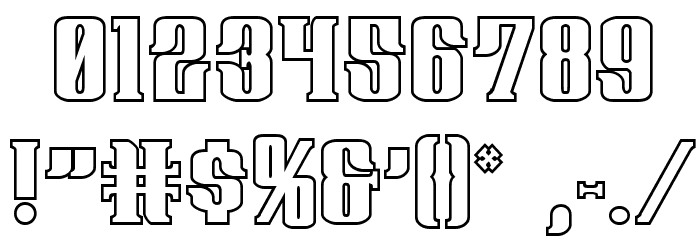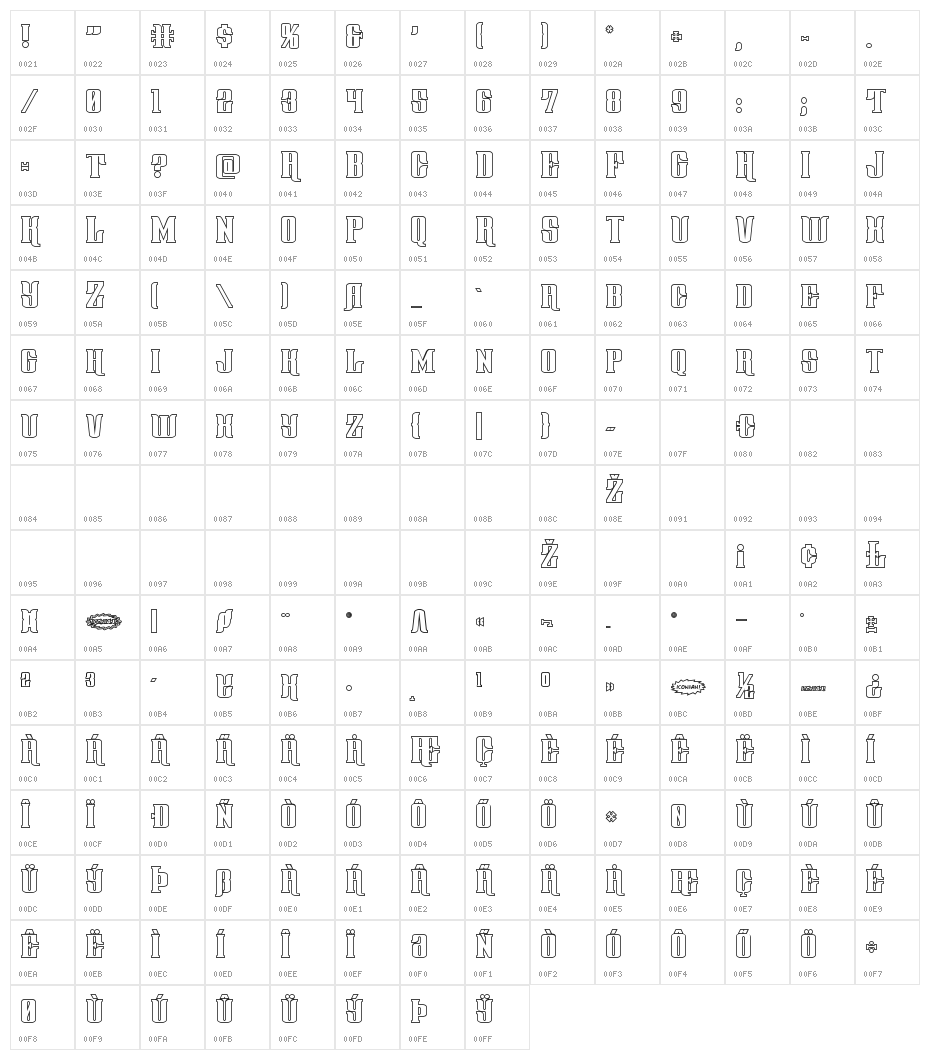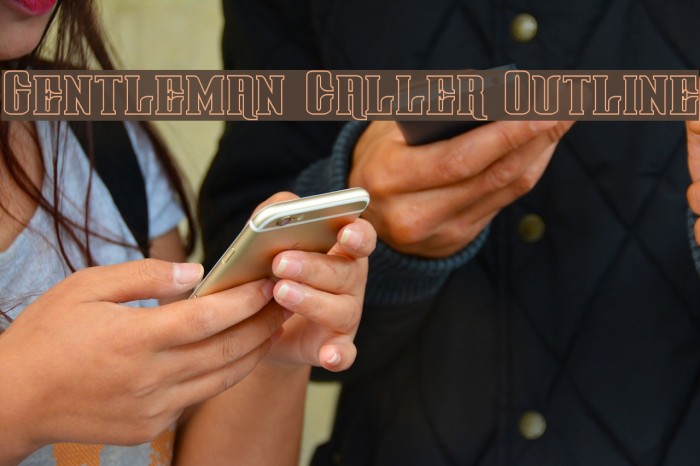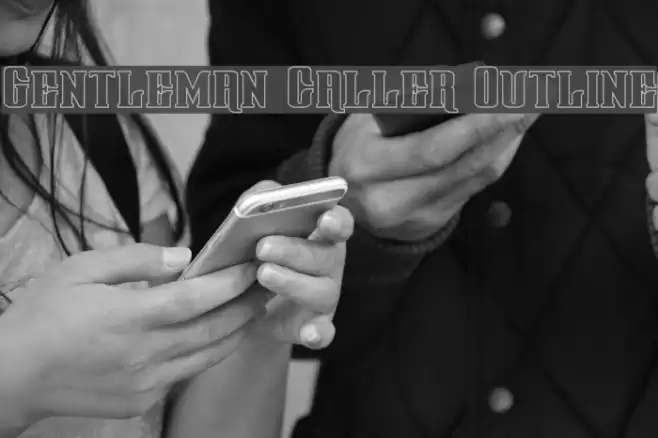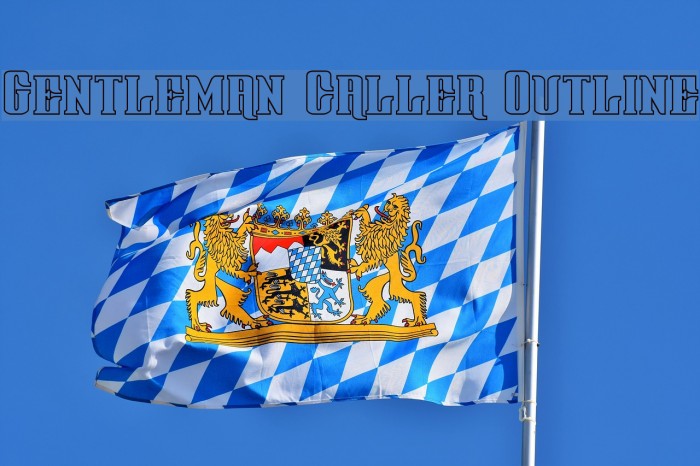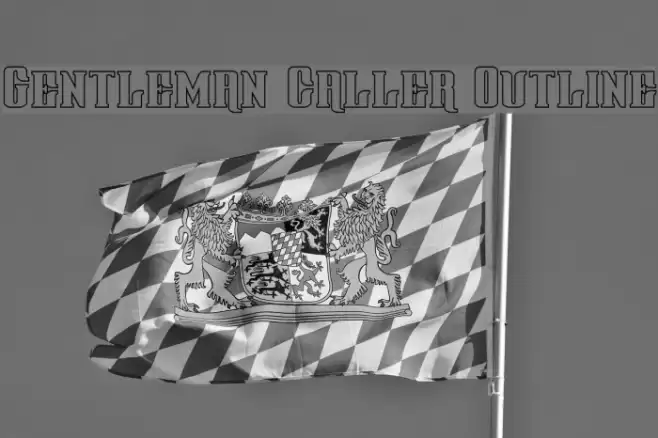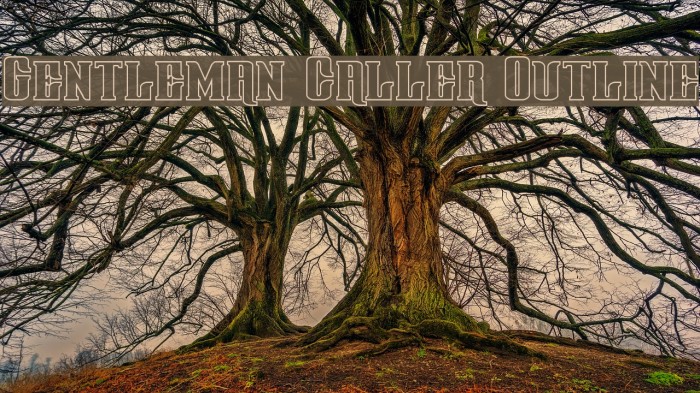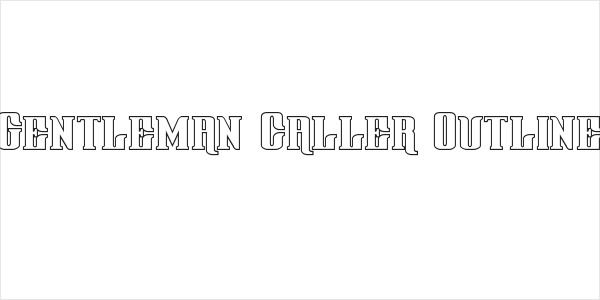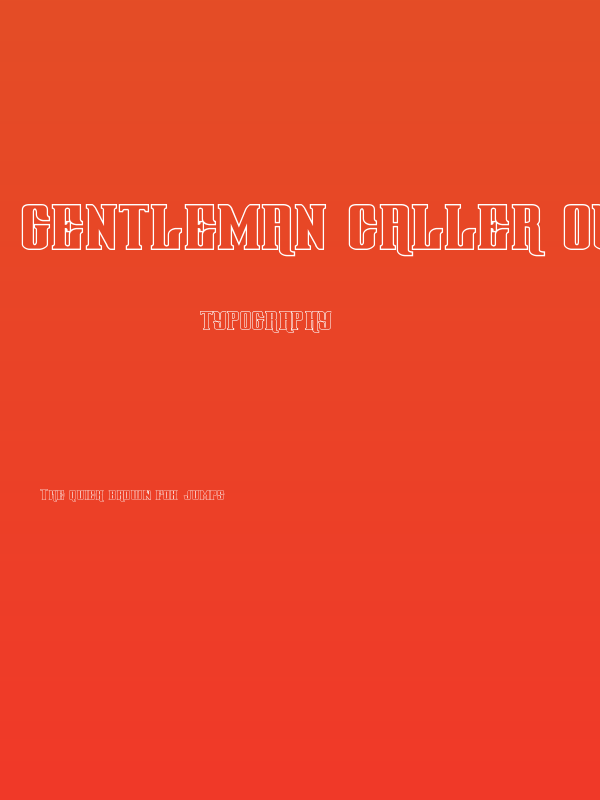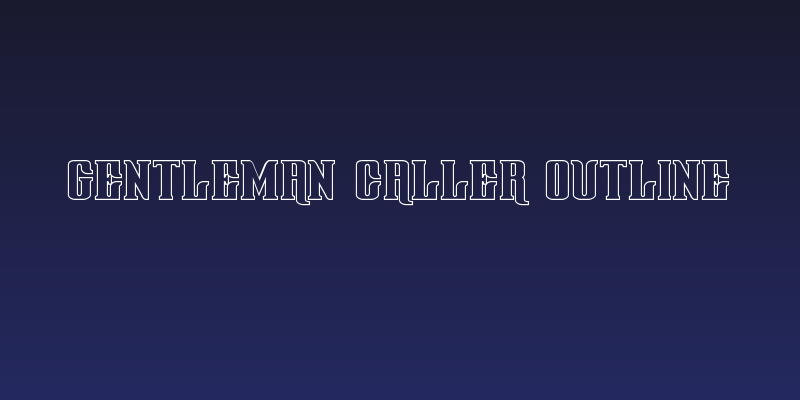
Gentleman Caller Outline Font
Gentleman Caller Outline Description
This font features a bold, outlined style with a strong presence. The characters are designed with a classic serif structure, giving them a traditional yet striking appearance. The outlines are consistent and add a decorative element that enhances the visual impact. The uppercase letters are prominent, with sharp angles and a sturdy build, while the lowercase letters maintain a similar style with slightly softer edges. The numerals are equally bold and follow the same outlined design, ensuring uniformity across all characters. Special characters are included, maintaining the same stylistic approach, making this font versatile for various uses.